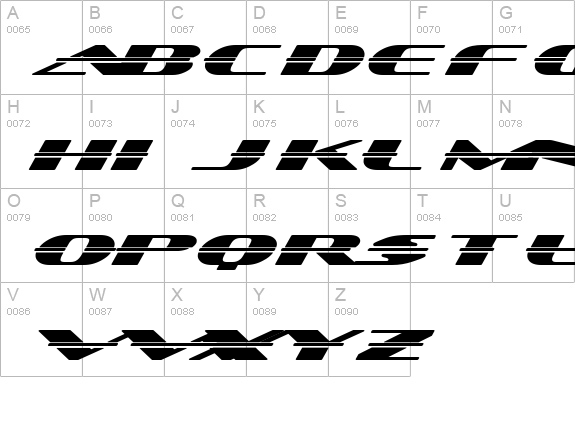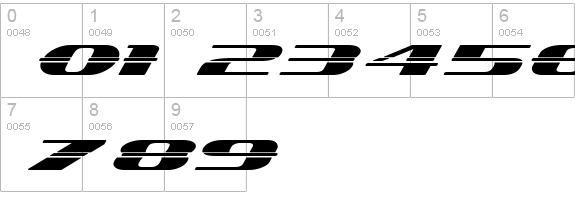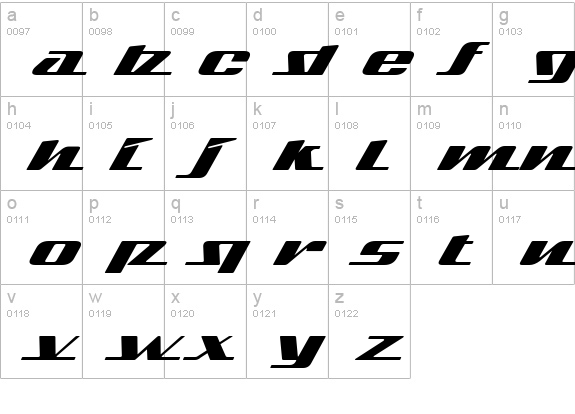
Sandoval Speed Font Details
Sandoval Speed font is a dynamic and energetic typeface that exudes a sense of movement and speed. Its sleek lines and sharp angles make it perfect for projects that require a modern and edgy look. Whether you're designing a sports poster, a tech website, or a high-energy branding campaign, Sandoval Speed font will add a touch of excitement and vitality to your designs. And the best part? Sandoval Speed font is available for free download at FontsMarket.com. This means you can easily access this powerful font and incorporate it into your projects without any cost. Don't miss out on this opportunity to elevate your designs with Sandoval Speed font - download it for free today!